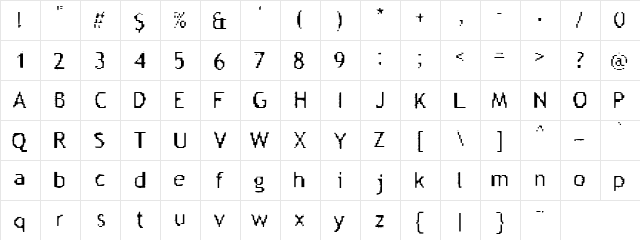
Aileenation Regular
Design Context for Aileenation Typeface
Aileenation is a composed and adaptable typeface that performs quietly and consistently across a wide range of design contexts.